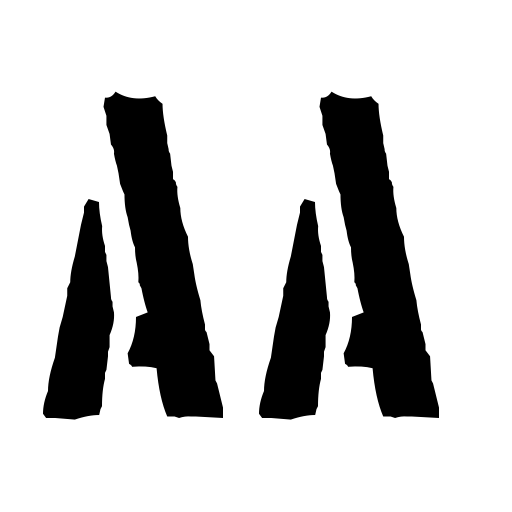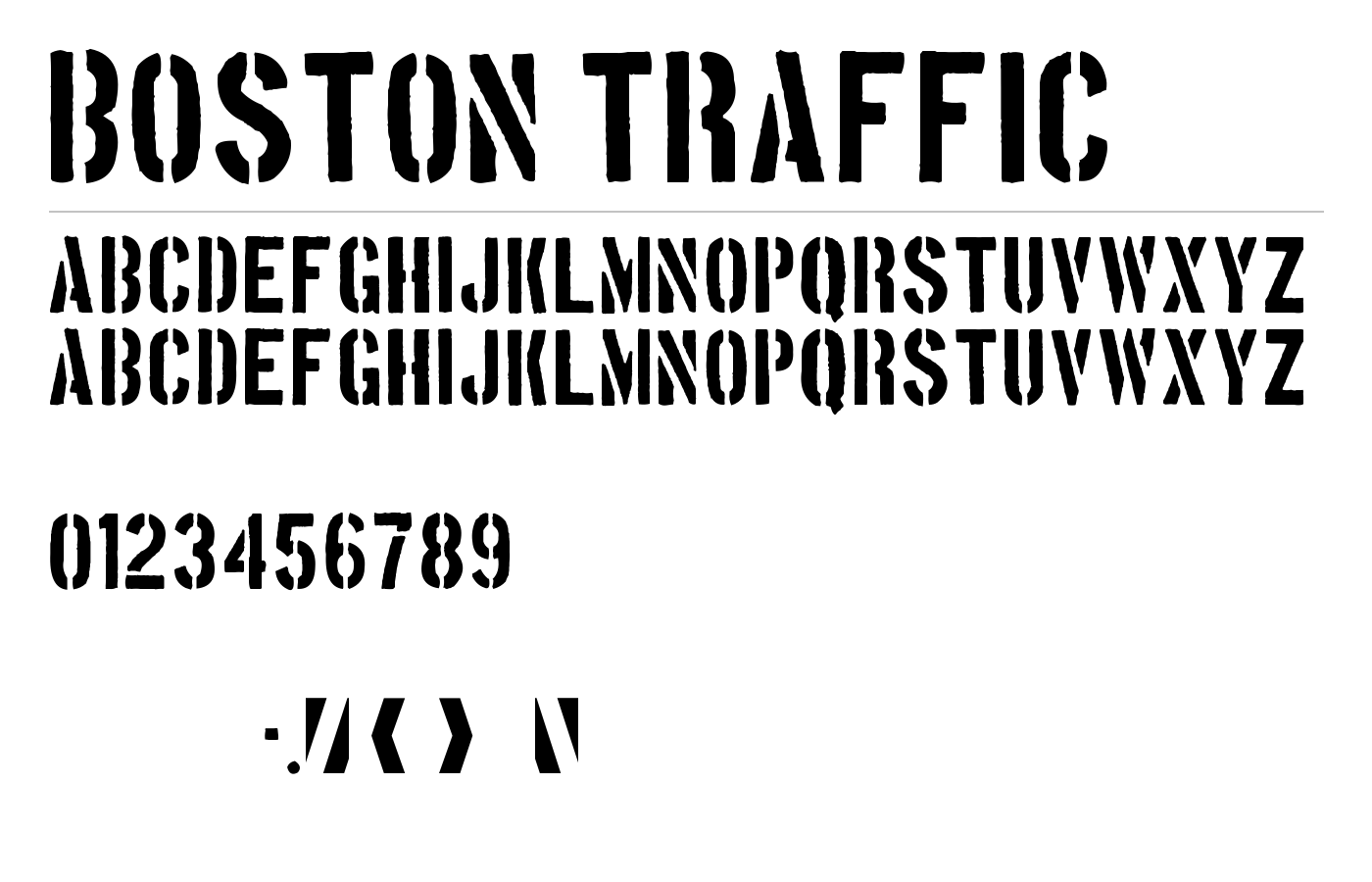
Boston Traffic is a bold, condensed stencil sans serif font with a strong industrial and vintage vibe. Its high contrast between thick and thin strokes, combined with rough, stencil-cut edges, gives it a rugged, utilitarian feel that works well for impactful headlines, signage, and branding with an urban or retro touch. This font excels in designs that require a tough, authoritative presence while maintaining readability and style.
Boston Traffic Font
About Boston Traffic Font